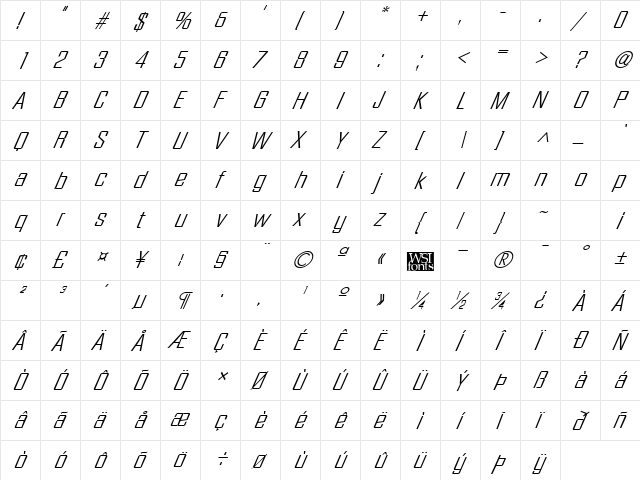
FacetLight-XXitalic Regular Font Preview
Design Context for FacetLight-XXitalic Typeface
FacetLight-XXitalic offers clean, dependable letterforms without strong stylistic allegiance, making it a practical choice for designers who need flexibility. The slanted form adds forward momentum and visual energy. The delicate stroke weight brings airiness and refinement to layouts.
Pro Tip: Try FacetLight-XXitalic for annotation and caption copy alongside an upright companion — the contrast in angle creates a dynamic but ordered typographic system.